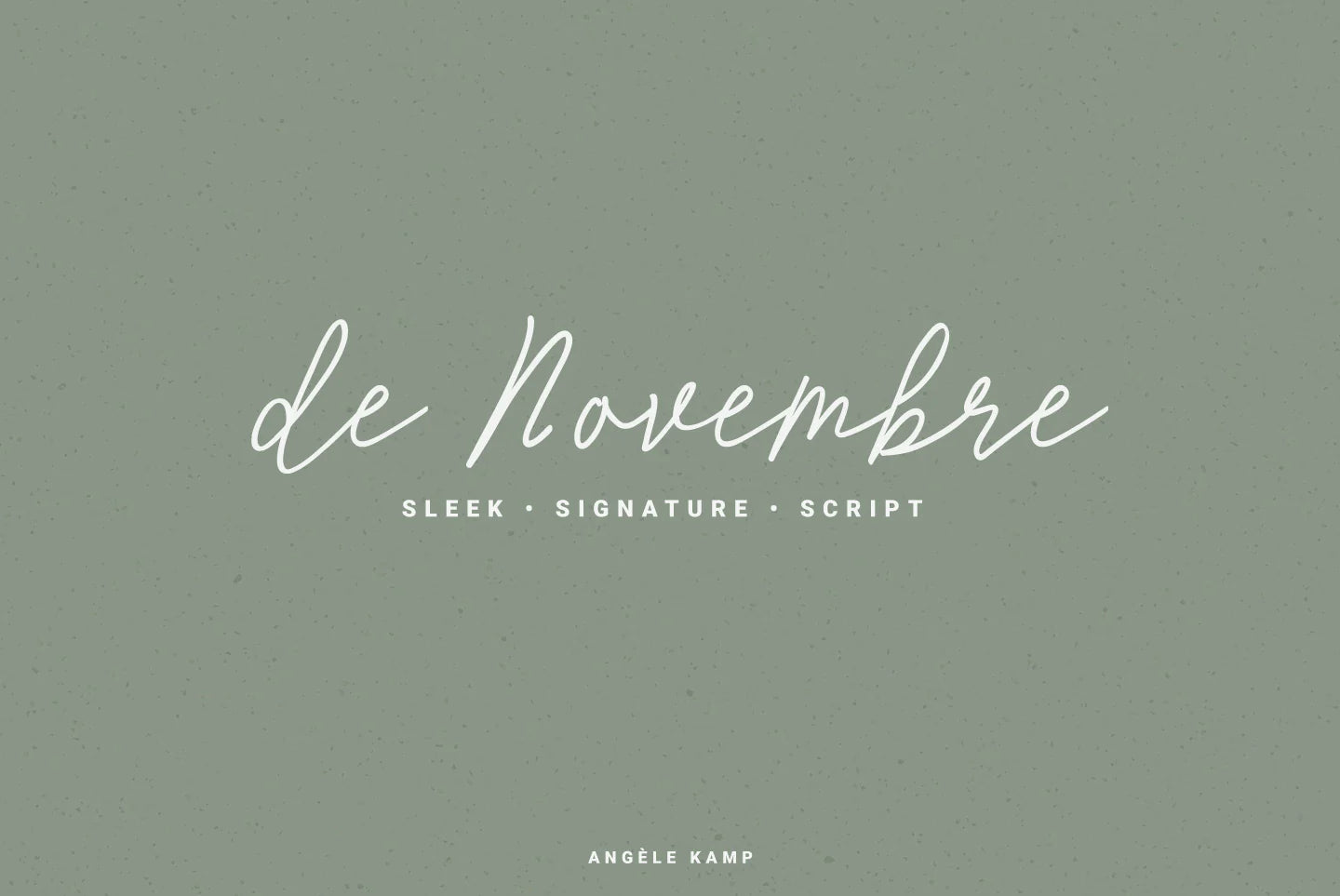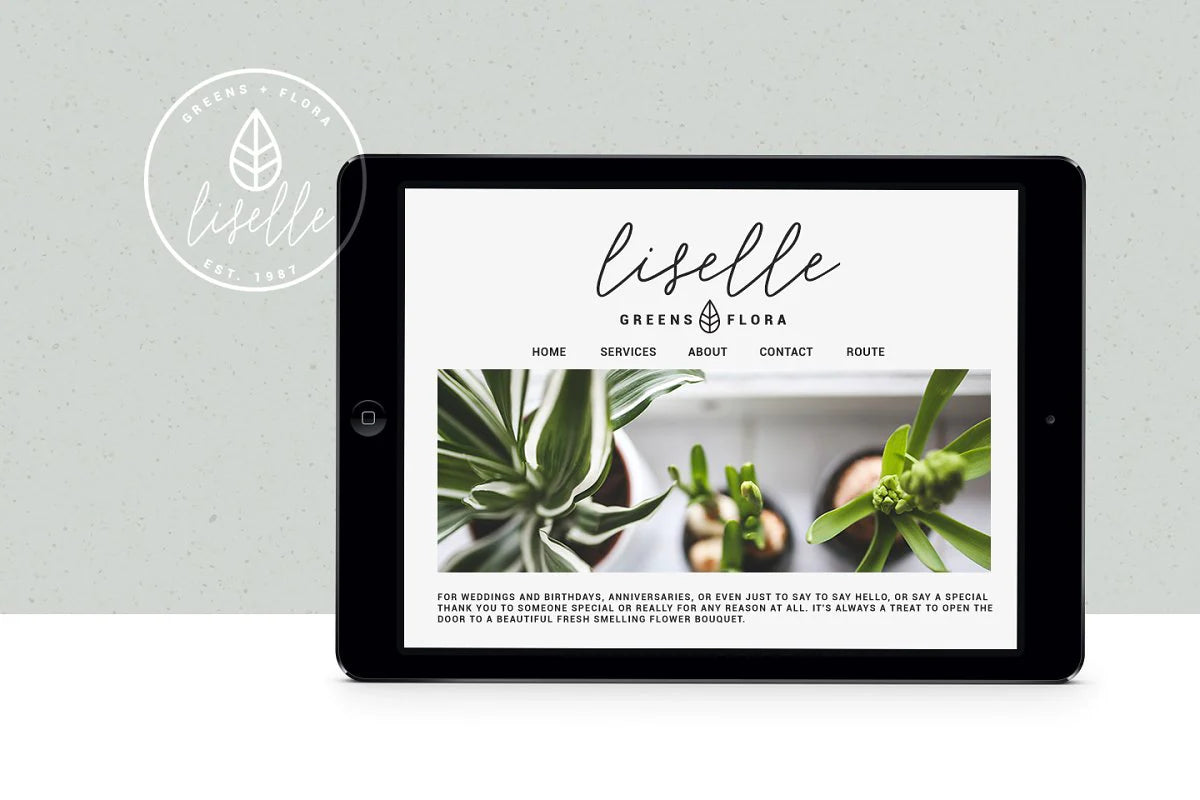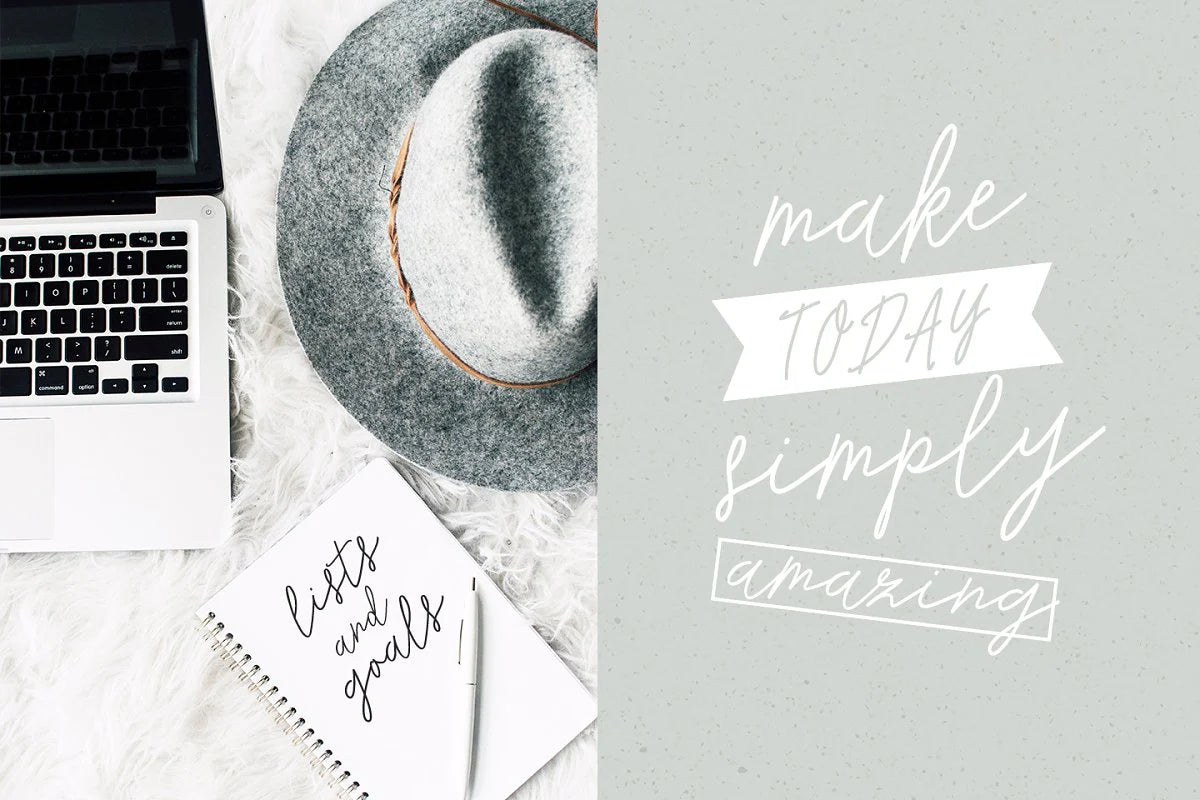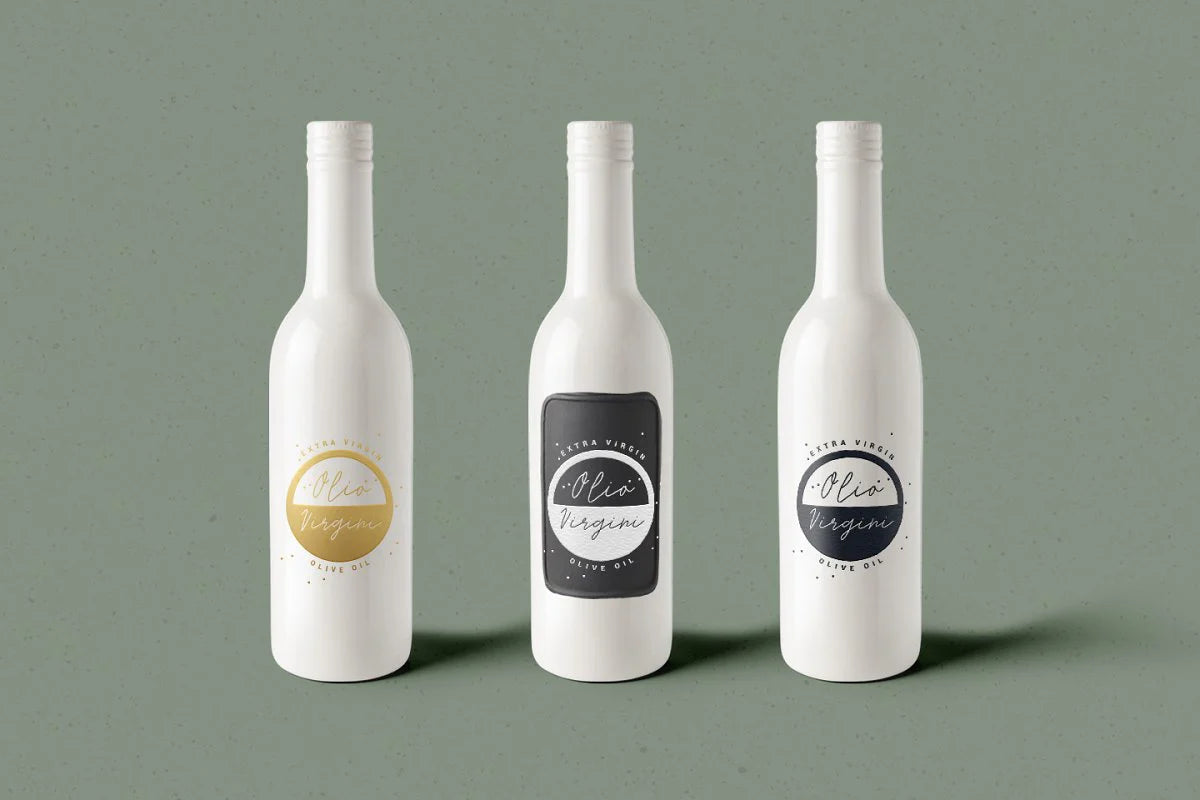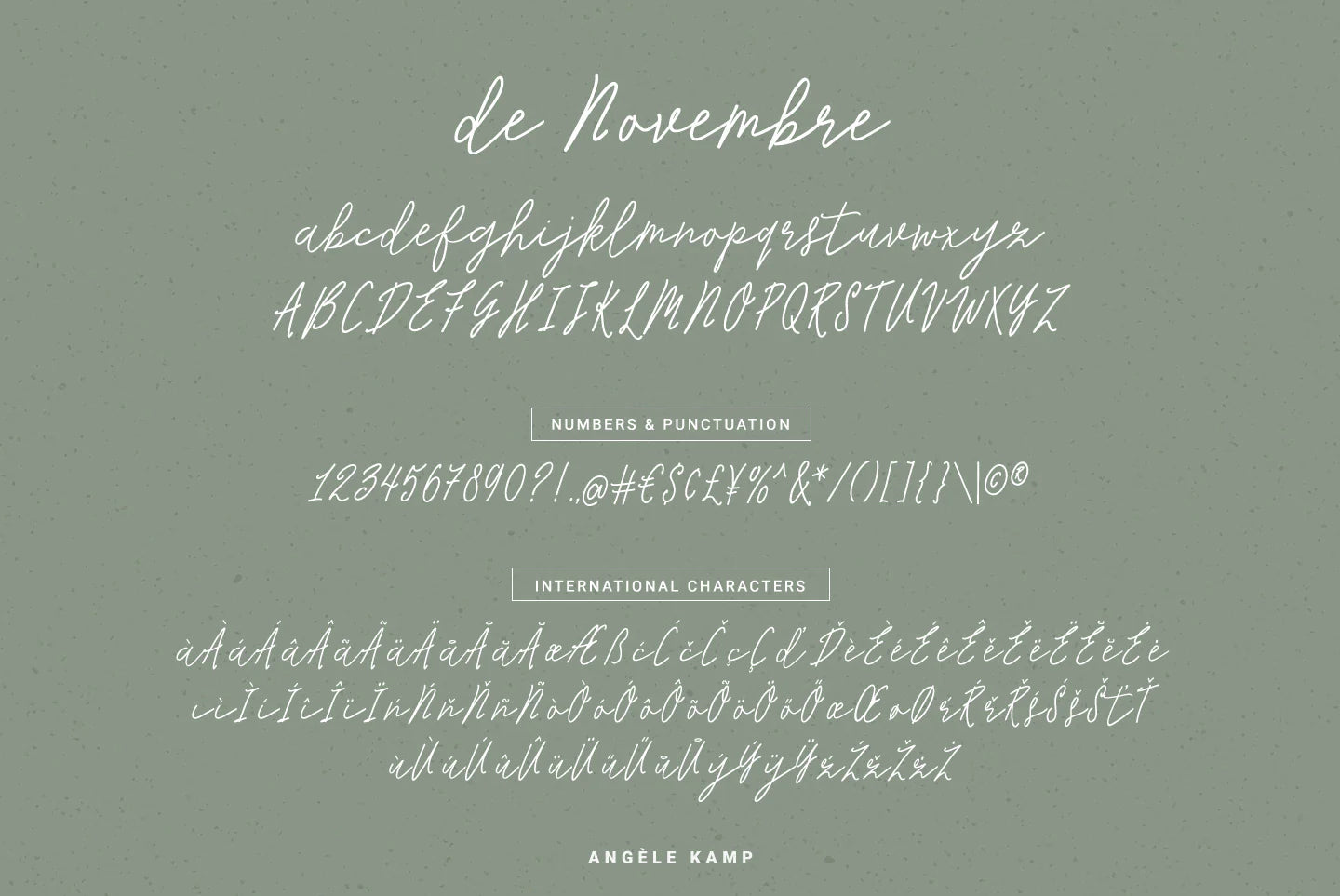
De Novembre font
De Novembre is a sleek, signature, script which will give instant class and style to your work. Use this font for branding, logos, signatures, invites, and all your other lovely projects.